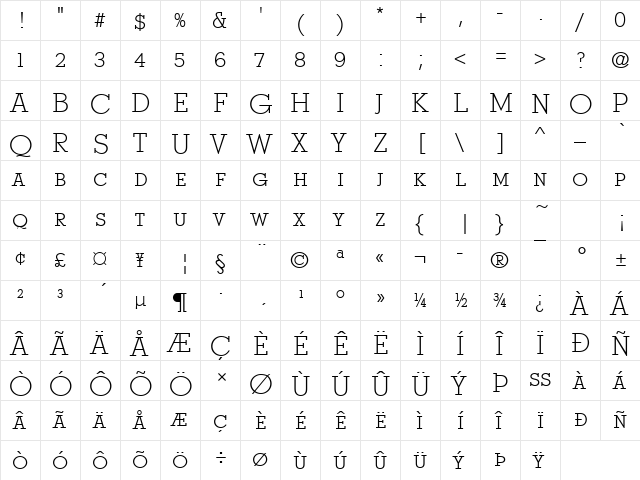
Stymie Becker Discaps Light Regular
Design Context for Stymie Becker Discaps Light Typeface
Stymie Becker Discaps Light offers clean, dependable letterforms without strong stylistic allegiance, making it a practical choice for designers who need flexibility. Its slender proportions lend an understated elegance to any composition.